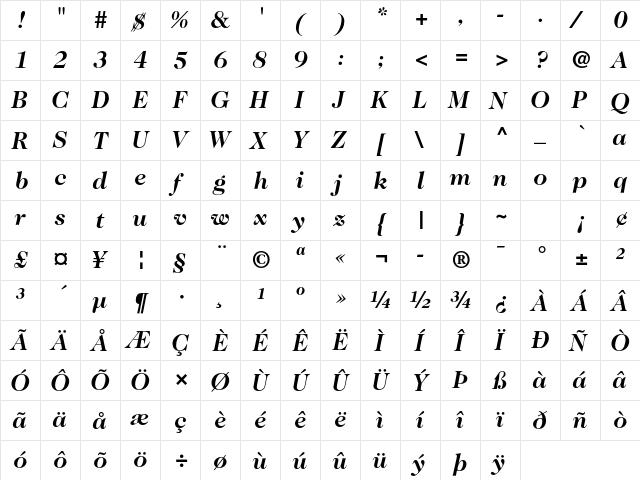
ITC Caslon 224 Std Bold Italic Font Preview
| Designer | Ed Benguiat |
Design Context for ITC Caslon 224 Std Typeface
ITC Caslon 224 Std takes a measured approach to typography — its balanced proportions and neutral character make it a reliable workhorse for both digital and print work. The dynamic lean of this cut emphasises speed and emphasis in any layout. The heavy weight commands attention and anchors typographic hierarchies.
Pro Tip: Use ITC Caslon 224 Std for emphasis, pull quotes, and subheadings where its slanted energy can add rhythm to the layout.